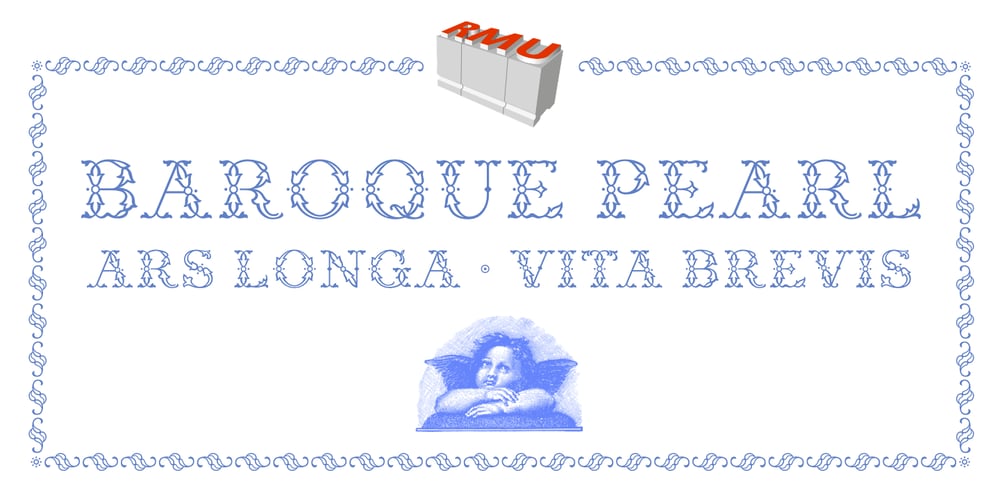
Baroque Pearl Font Family was designed by Ralph M. Unger and published by RMU. Baroque Pearl contains 1 styles and family package options. Inspired by Demeter’s Geperle Fournier, Baroque Pearl is a highly ornate display font of the same style which was carefully extended with Baltic, Turkish and Central European character sets.